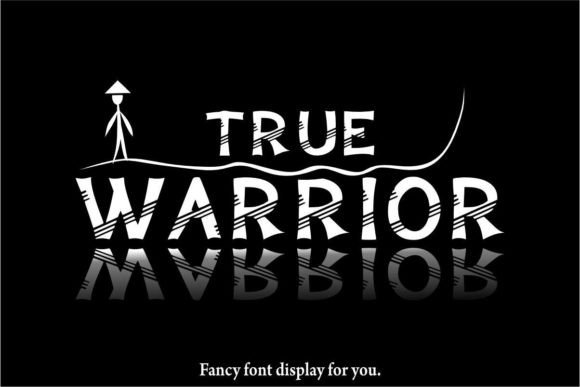
Unleash the power of enchantment with True Warrior Font, a mesmerizing display font that transports you to a realm of captivating expressions. Crafted with meticulous attention to detail, True Warrior Font boasts an irresistible charm that captivates and enchants.
Immerse yourself in the allure of an old map, where forgotten treasures and untold stories await discovery. True Warrior Font evokes a sense of adventure and exploration, inviting you to embark on a journey through time and imagination. Each letter dances with grace and fluidity, capturing the essence of ancient civilizations and lost worlds.
With its playful and unpredictable nature, True Warrior Font dances through words, leaving a trail of magic and whimsy in its wake. Its unique quirks and eccentricities breathe life into ordinary words, transforming them into enchanting tales that captivate and inspire.
Discover the endless possibilities of True Warrior Font, a versatile companion for your creative endeavors. Whether you're designing posters, crafting logos, or creating website designs that leave a lasting impression, True Warrior Font is your key to unlocking a world of visual storytelling. Unleash your truest self and let your imagination soar with True Warrior Font, the font that ignites your creative spark and leaves an imprint on the world..